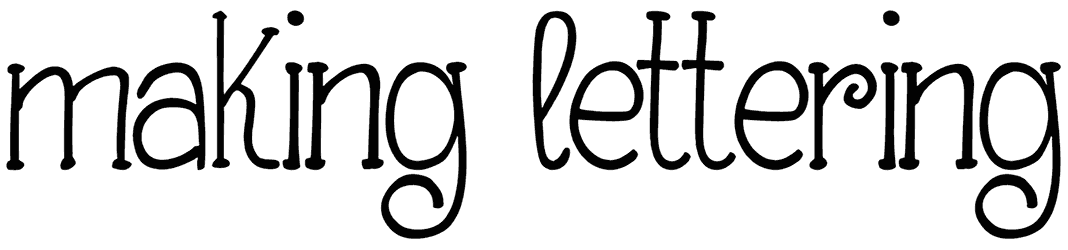
Making Lettering Font
Making Lettering has proven that capital letters and numbers are not necessary to attract the audience’s attention, and only by being armed with small letters, you can create a new shape in your content tone and alphabet.
Making Lettering is fancy serif hand-drawn font realized with the simplicity of a single marker pen.
Its cheerful irregularities and its fresh and fancy look are the distinctive characteristics of this font that make it perfect in projects where the “handmade, natural and friendly” feelings are required.Now updated with a new set of characters, Making Lettering font is part of a family of 4 that worths absolutely the time of a look!